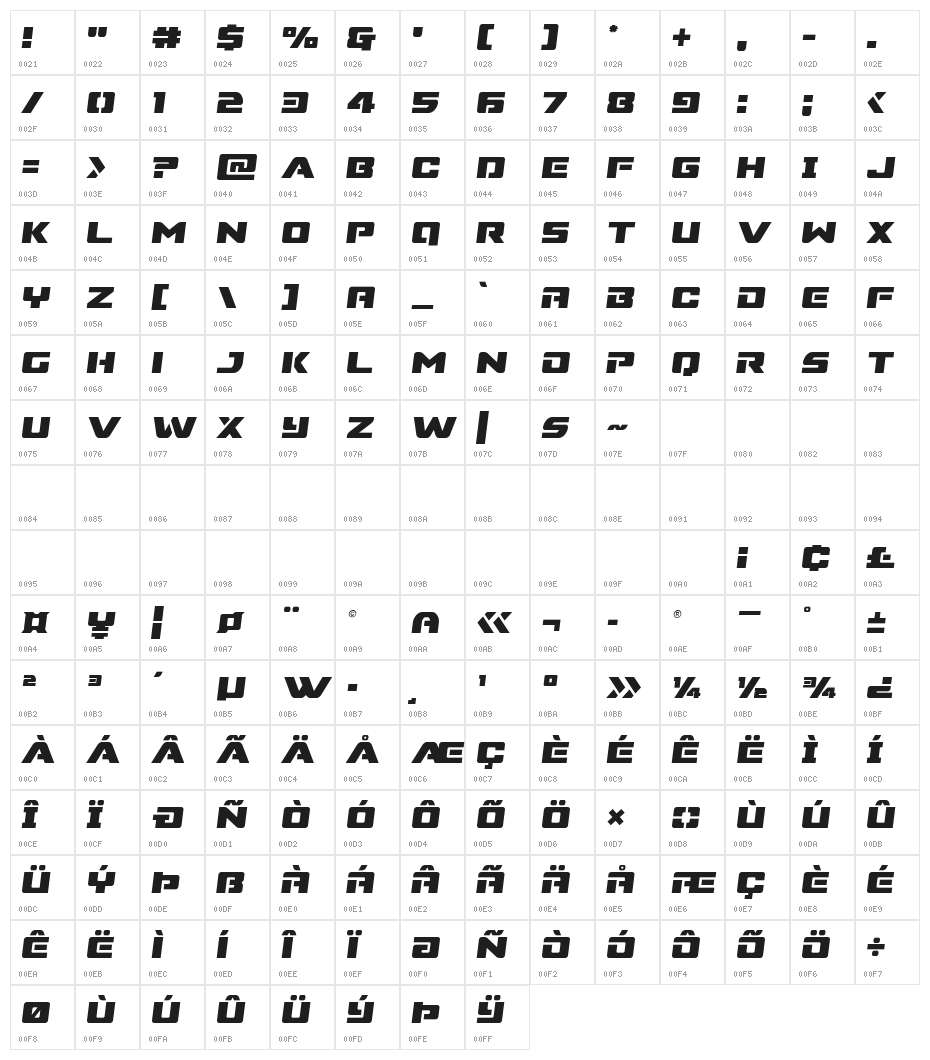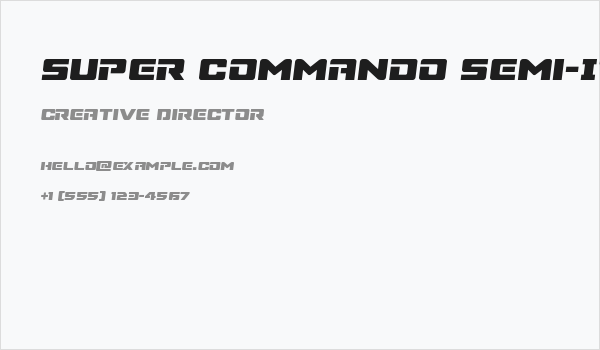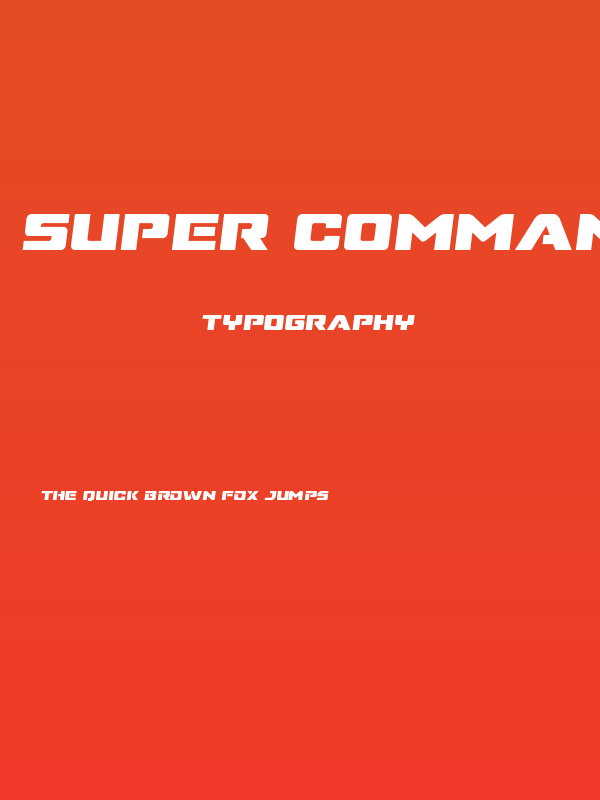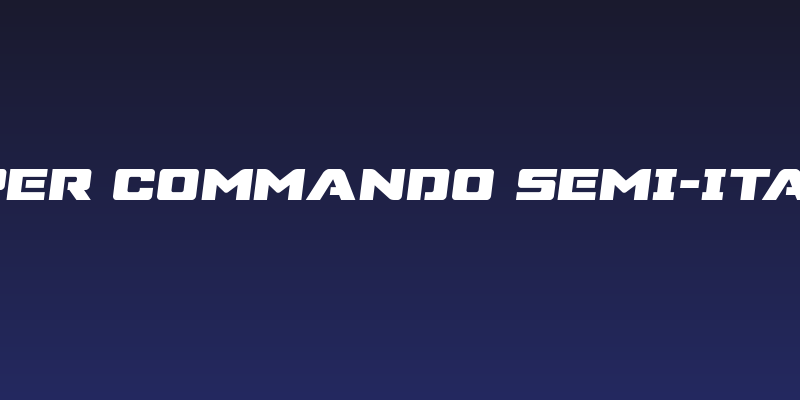
Super Commando Semi-Italic Font
Super Commando Semi-Italic Description
This font features a bold and dynamic style, characterized by its angular and geometric letterforms. The semi-italic slant adds a sense of motion and energy, making it ideal for attention-grabbing designs. The uppercase and lowercase letters maintain a consistent weight, providing a uniform appearance. The numerals and special characters are designed to complement the overall aesthetic, with a futuristic and robust feel. This font is perfect for projects that require a strong and impactful visual presence.
| Proposed Projects | Ideal for sports branding, video game titles, action movie posters, and dynamic logo designs. |